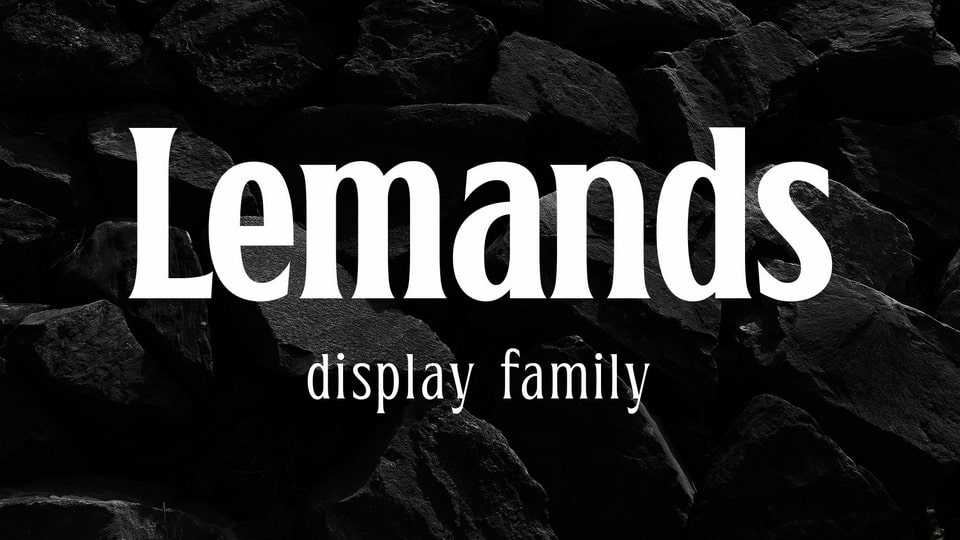
Download Lemands font, a strong-sharp serif typeface in condensed height. Lemands is designed with medium contrast and inspired by the modern-classic typography and the High Octane Rock genre.